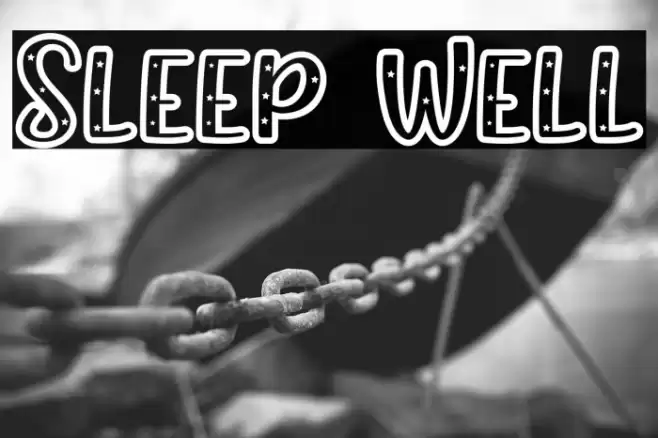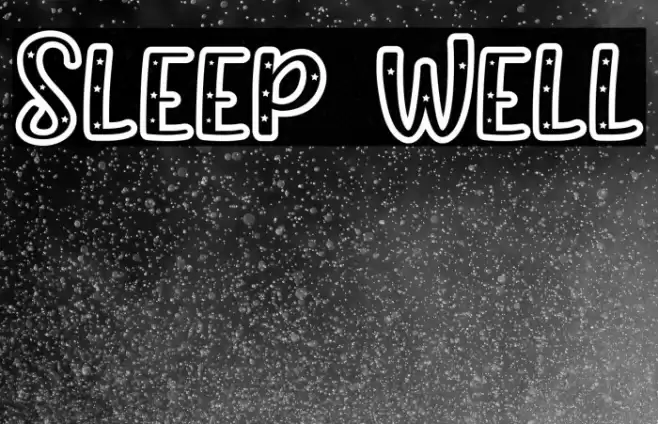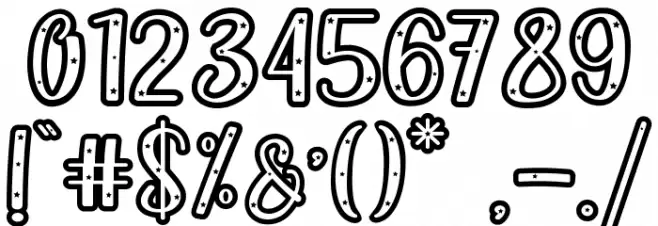
Sleep Well Font
Sleep Well Description
This playful and decorative font features bold, rounded letters with a whimsical touch. Each character is outlined and filled with small star-like decorations, giving it a fun and lively appearance. The uppercase and lowercase letters maintain a consistent style, with smooth curves and a slightly informal feel. The numerals and special characters follow the same design, ensuring a cohesive look across all elements. This font is ideal for projects that require a cheerful and engaging aesthetic.
A playful, star-decorated font with bold, rounded letters from Cartoon fonts.
- Proposed Projects: Perfect for children's book covers, party invitations, playful branding, and any project needing a fun, whimsical touch.